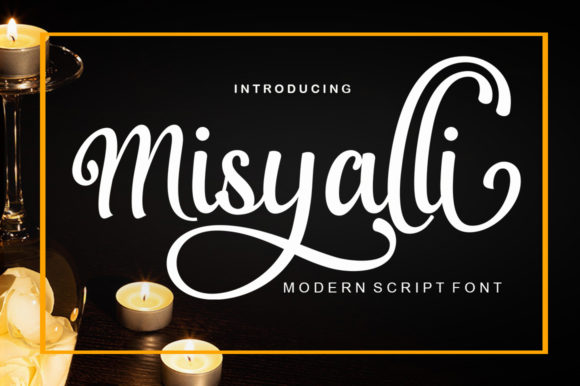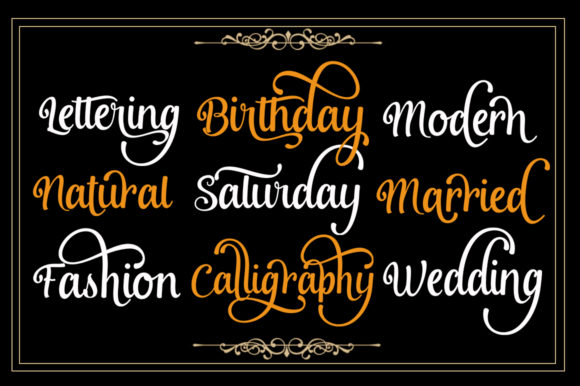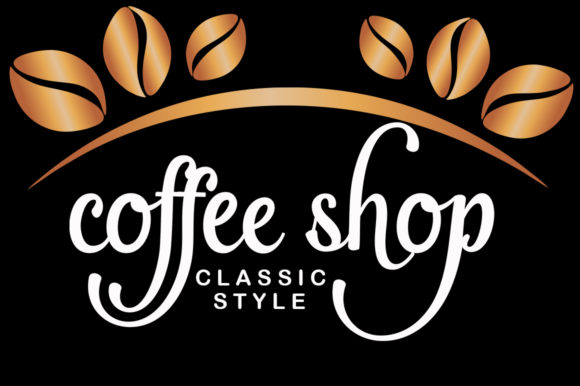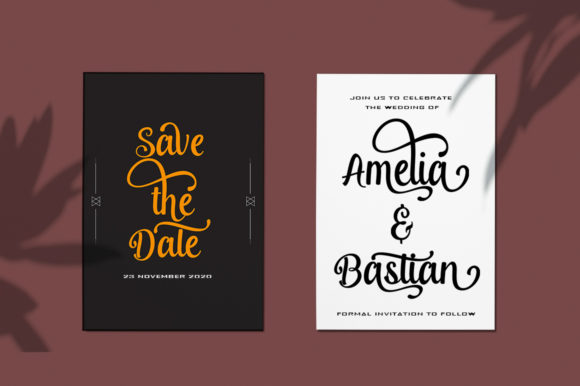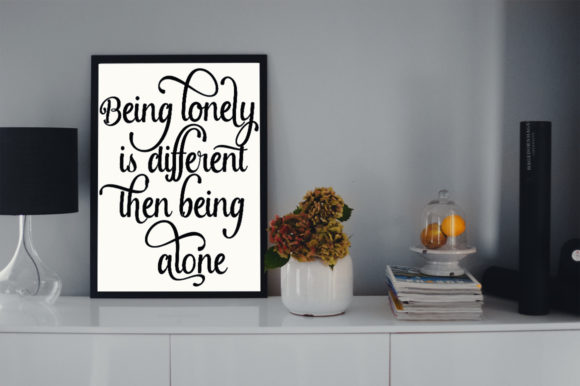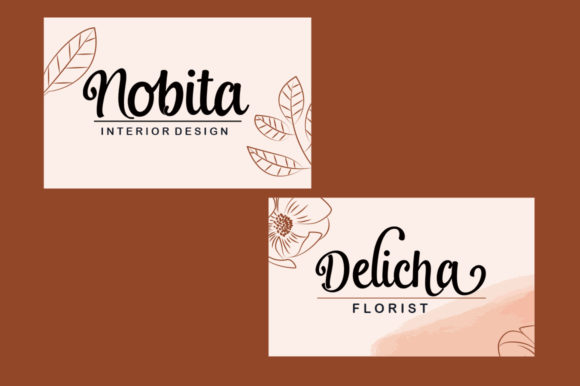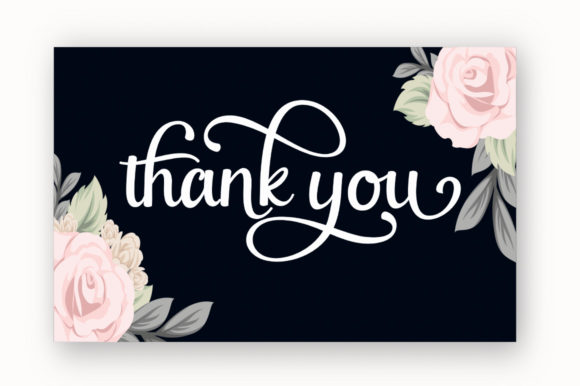
Misyalli Font
About Misyalli Font
Misyalli is an elegant and vintage script font. It has extra alternates swashes and it will give your designs a romantic touch.